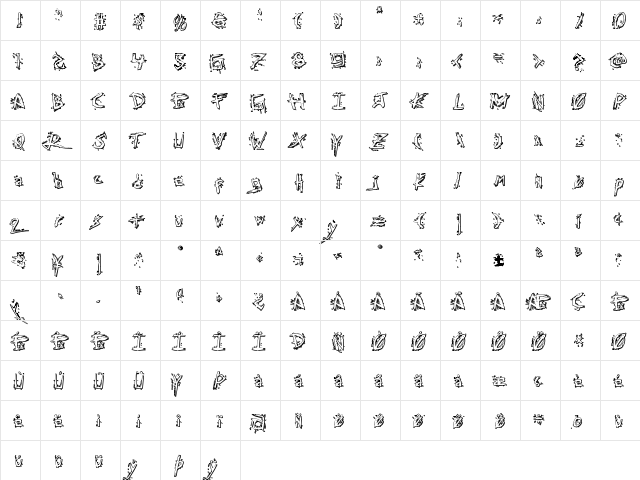
Assassin Nation 3D Regular
Design Context for Assassin Nation 3D Typeface
Assassin Nation 3D is a composed and adaptable typeface that performs quietly and consistently across a wide range of design contexts.